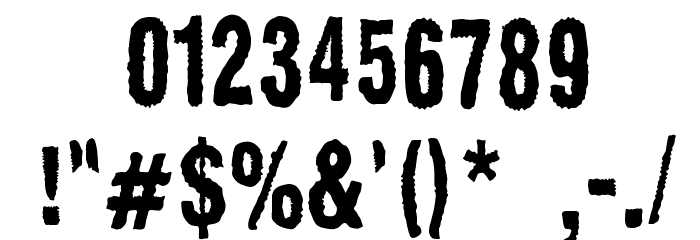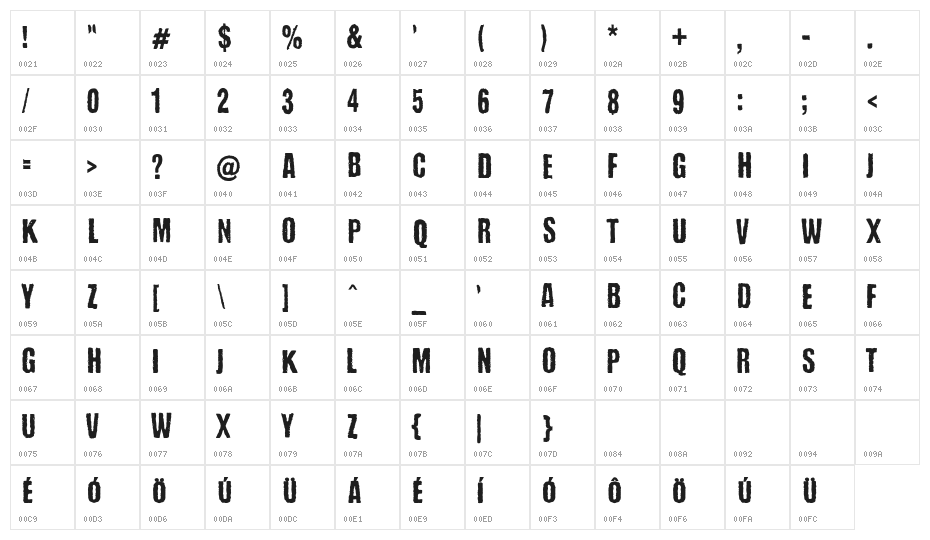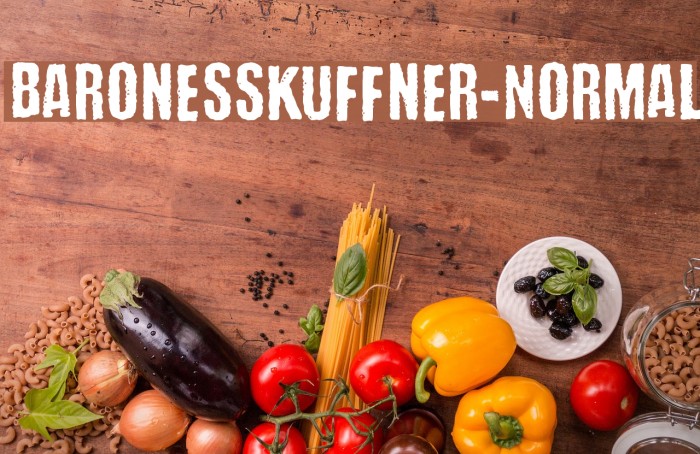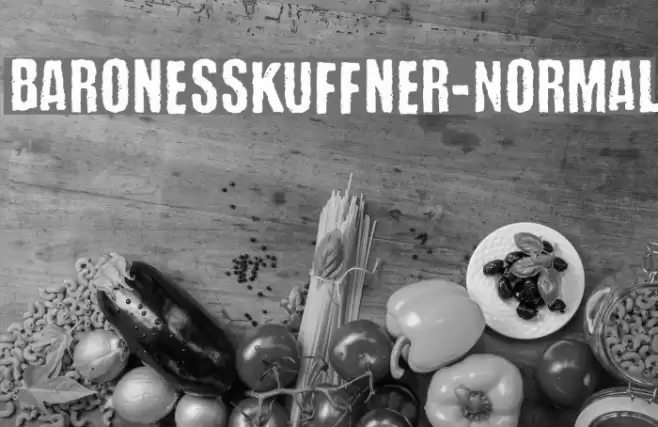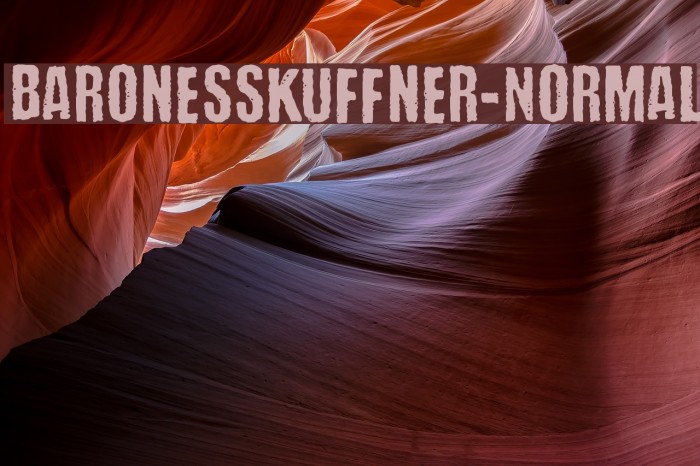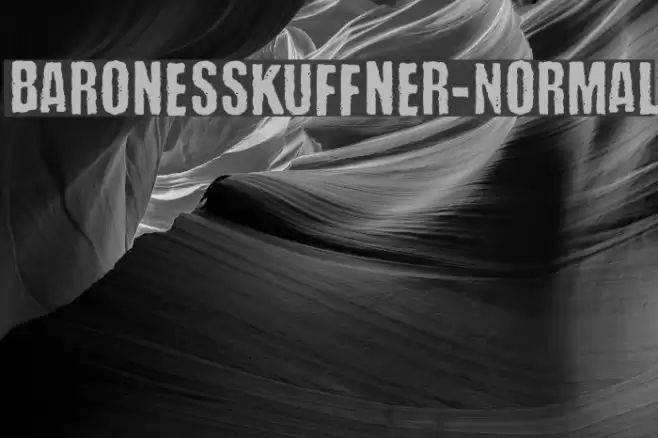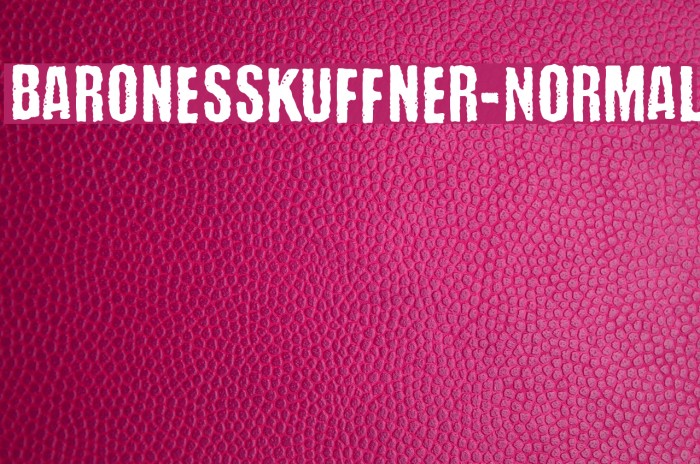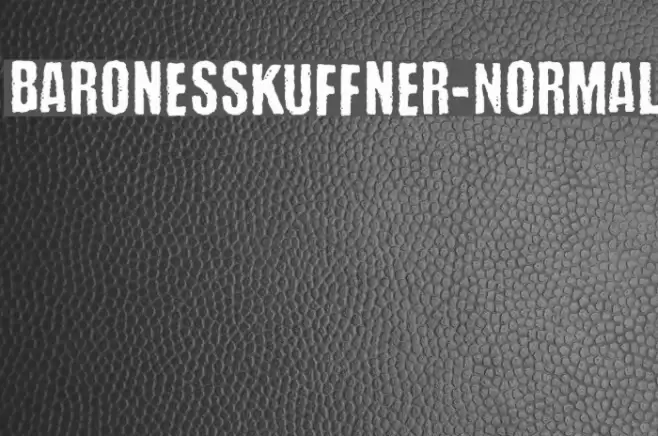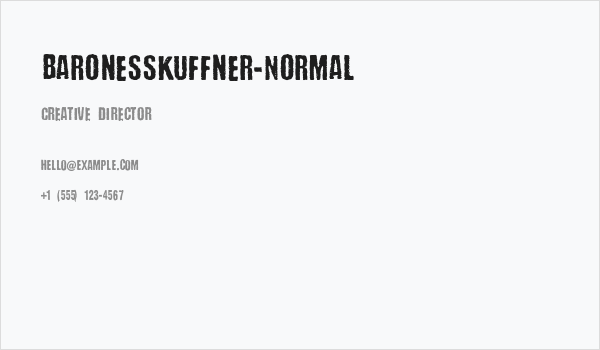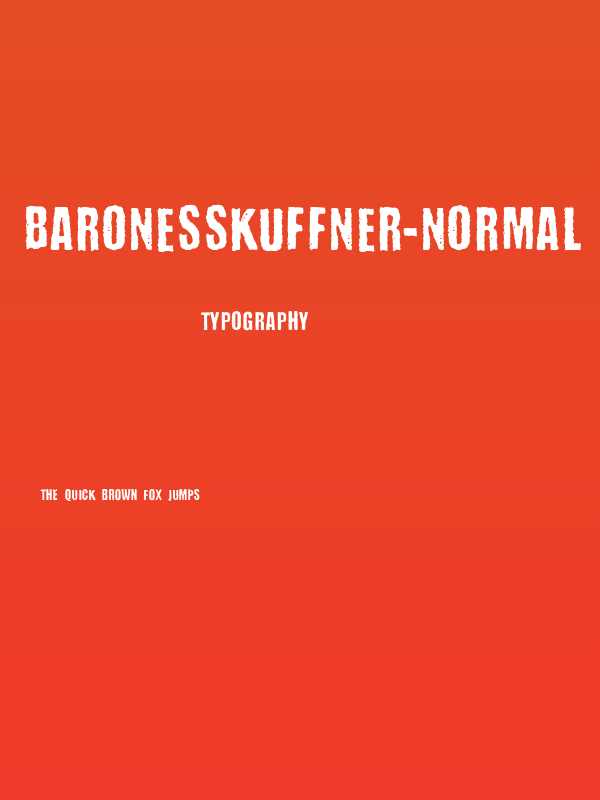
BaronessKuffner-Normal Font
This font features a bold, rugged style with a distressed texture that gives it a vintage, worn appearance. The uppercase and lowercase letters are consistent in their boldness, with slightly irregular edges that add to the handcrafted feel. The numbers and special characters maintain this distressed look, ensuring a cohesive appearance across all glyphs. The font's bold weight and textured finish make it stand out, ideal for projects that require a strong, impactful visual presence. Its unique style is reminiscent of old woodblock prints or vintage posters, making it suitable for designs that aim to evoke a sense of nostalgia or rustic charm.
Overall StyleVintage
Proposed ProjectsIdeal for vintage-themed posters, branding, packaging, and any design that requires a bold, rustic look.